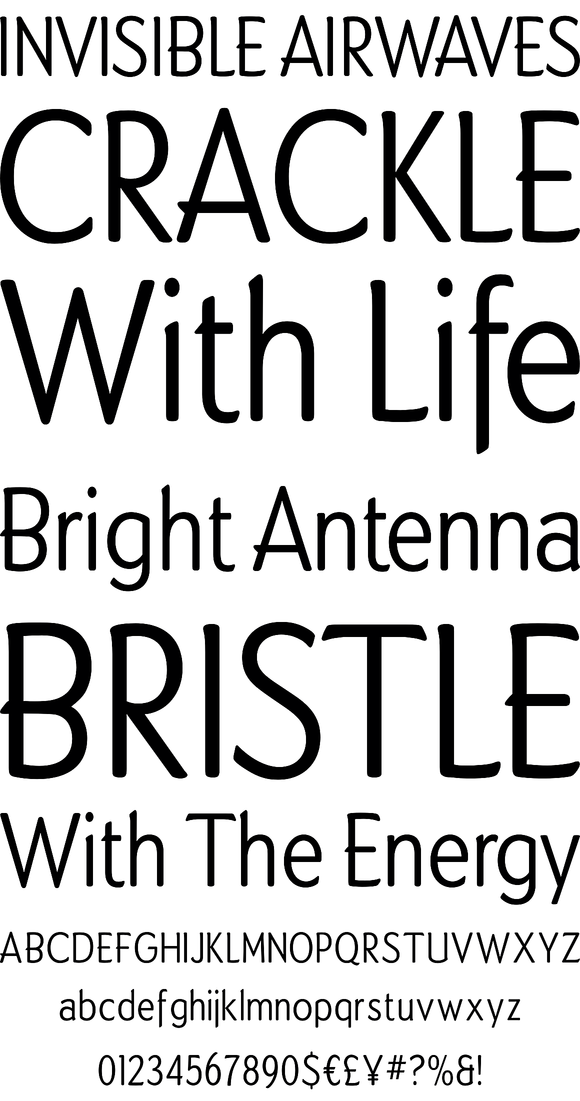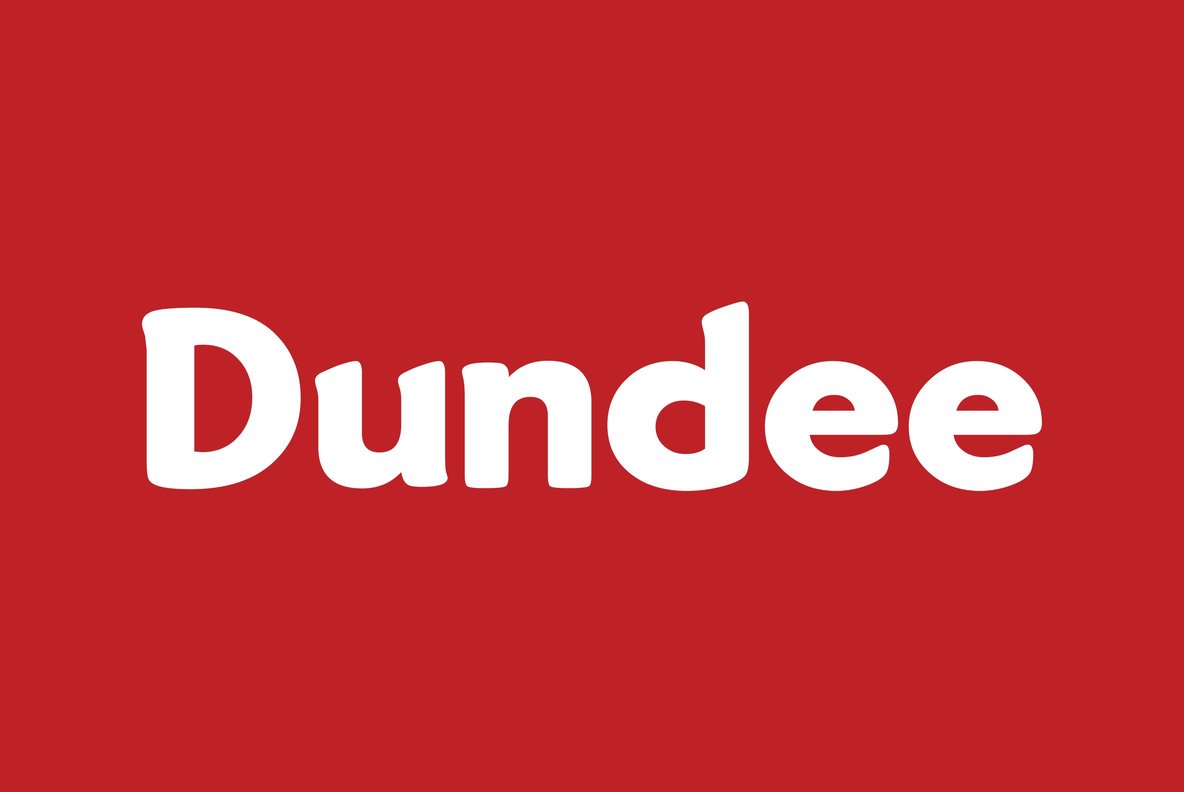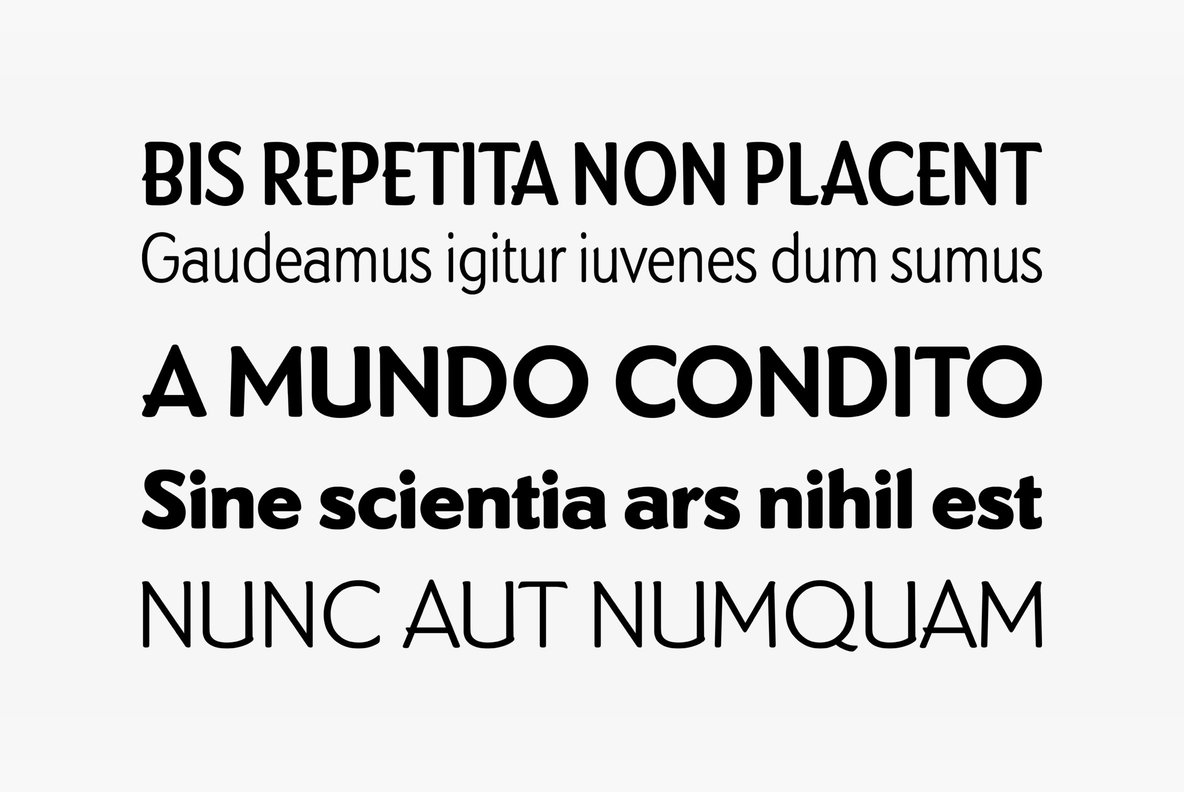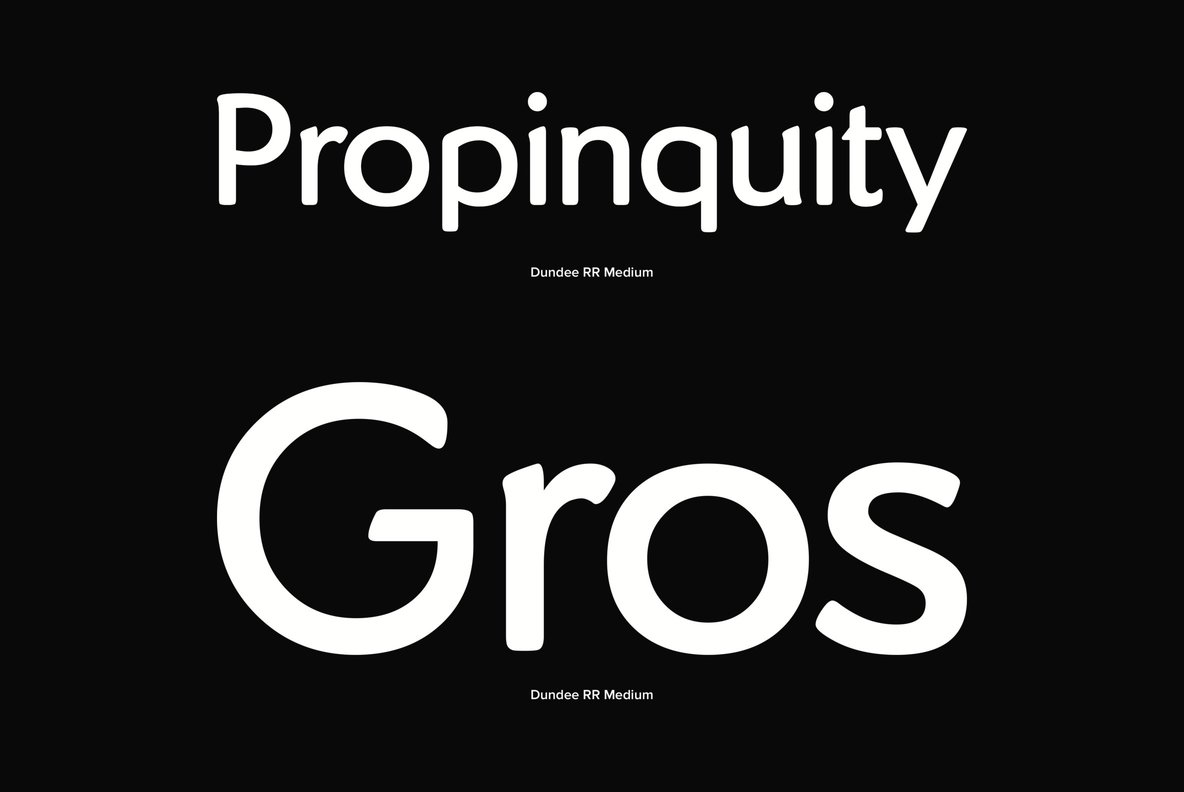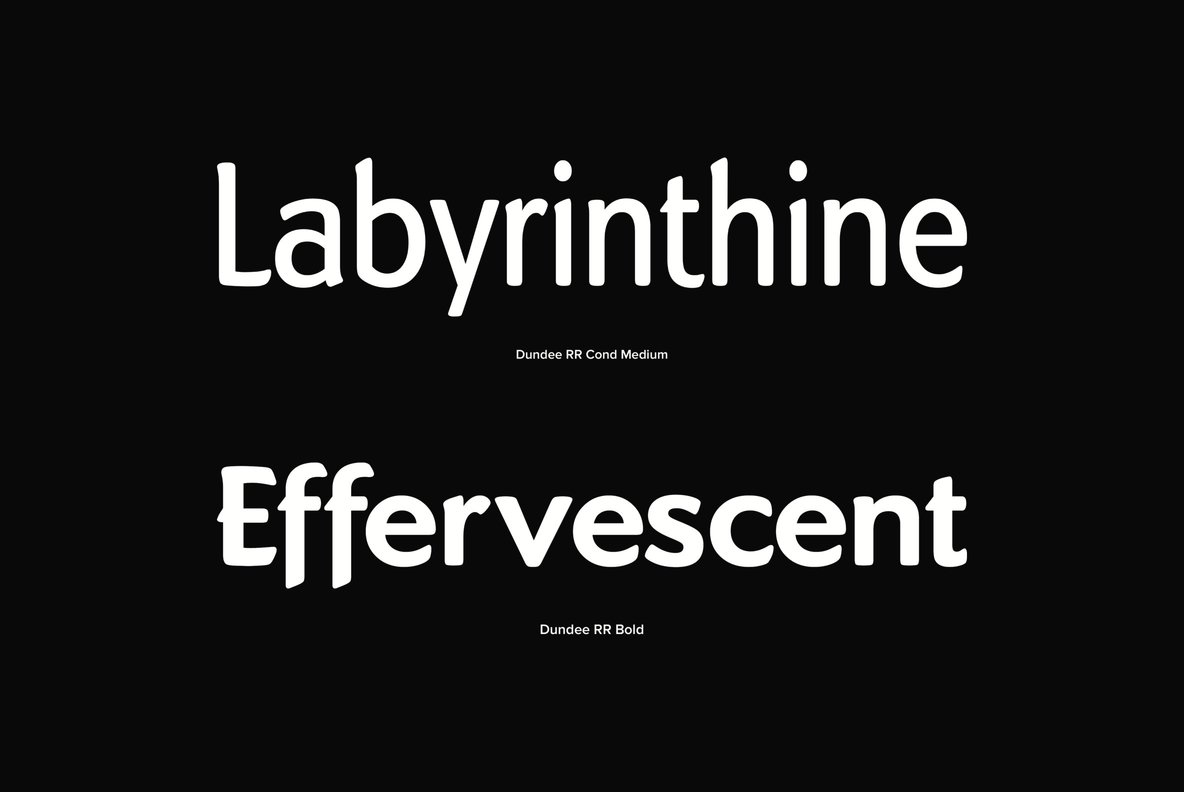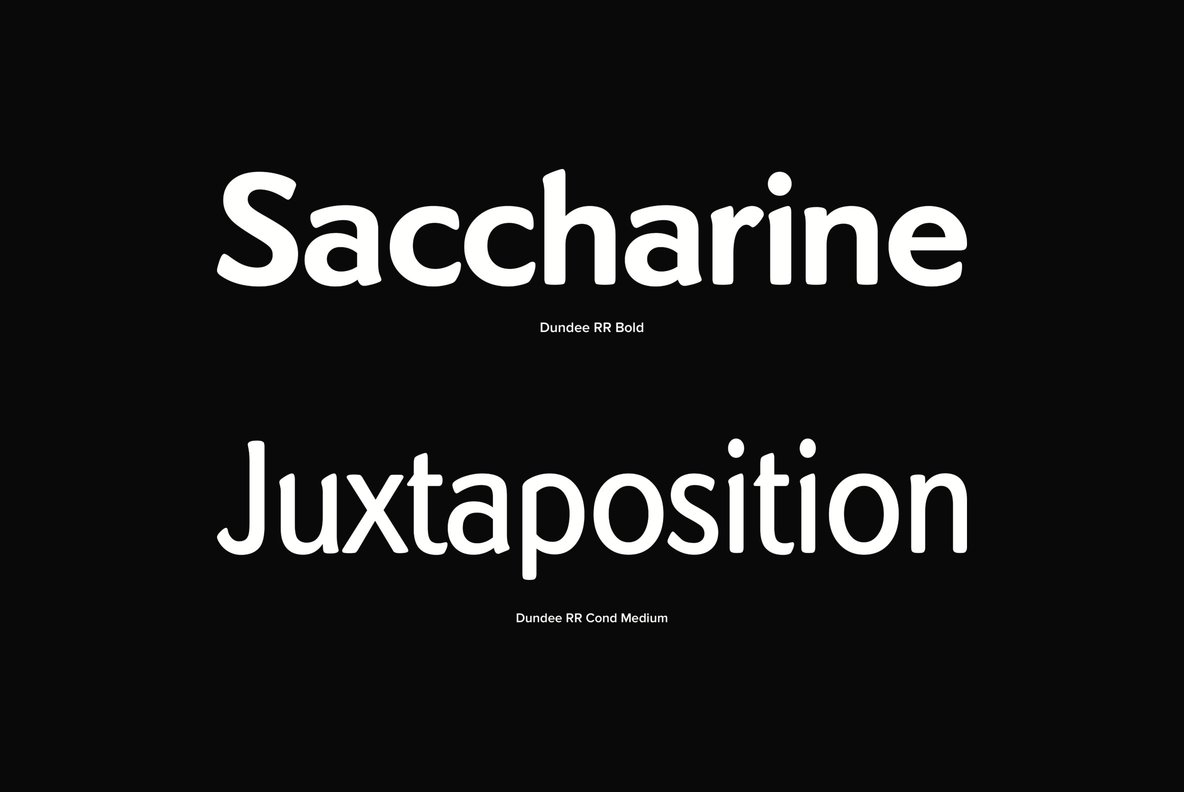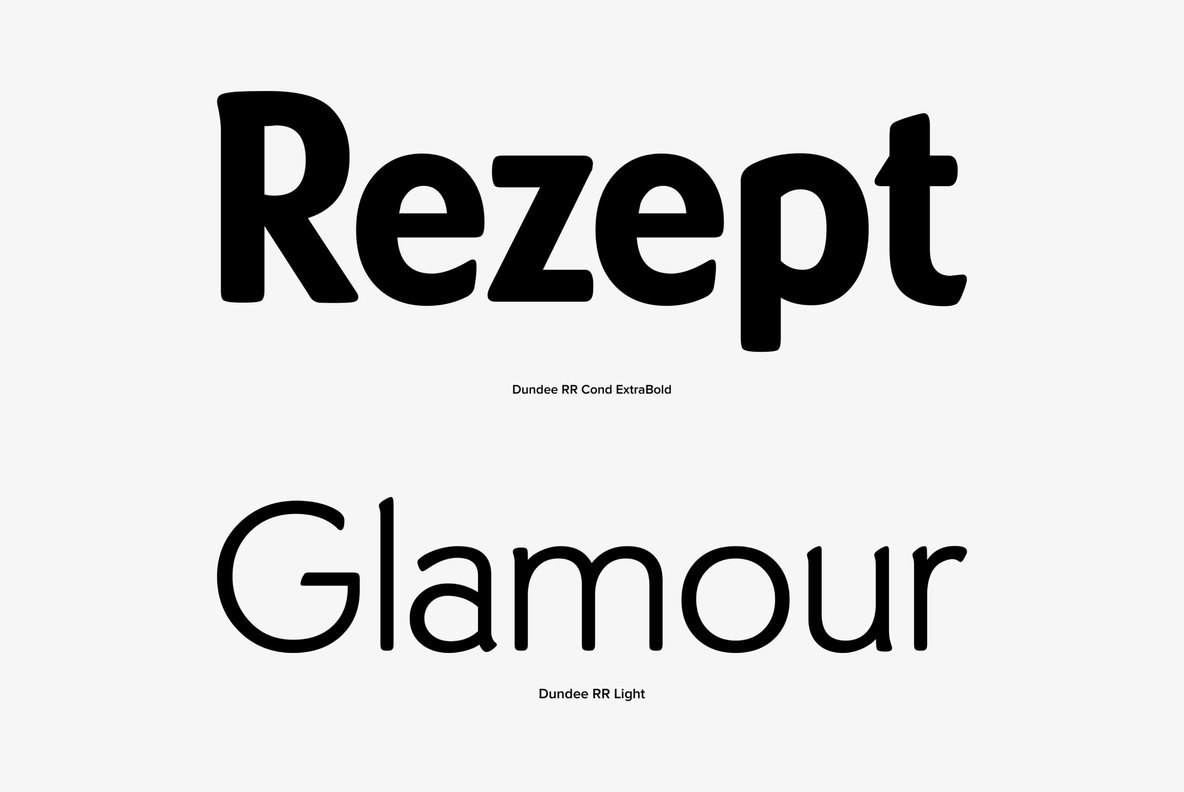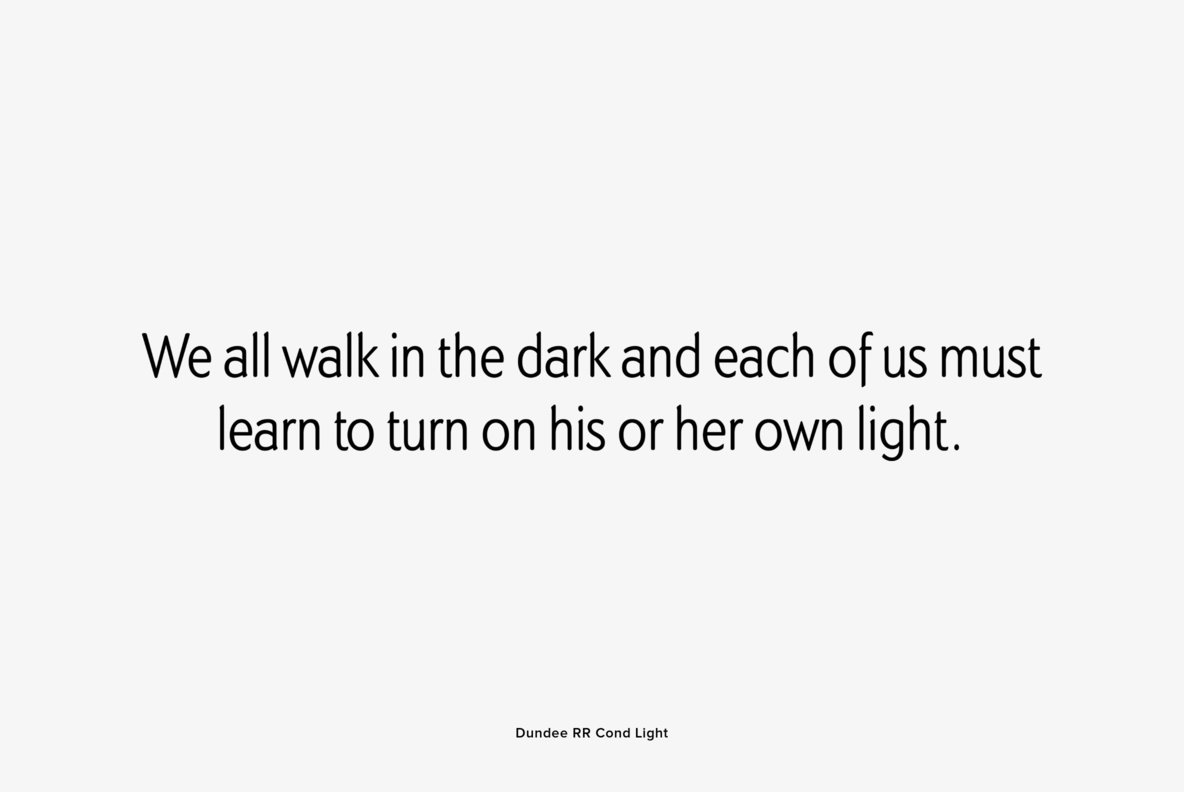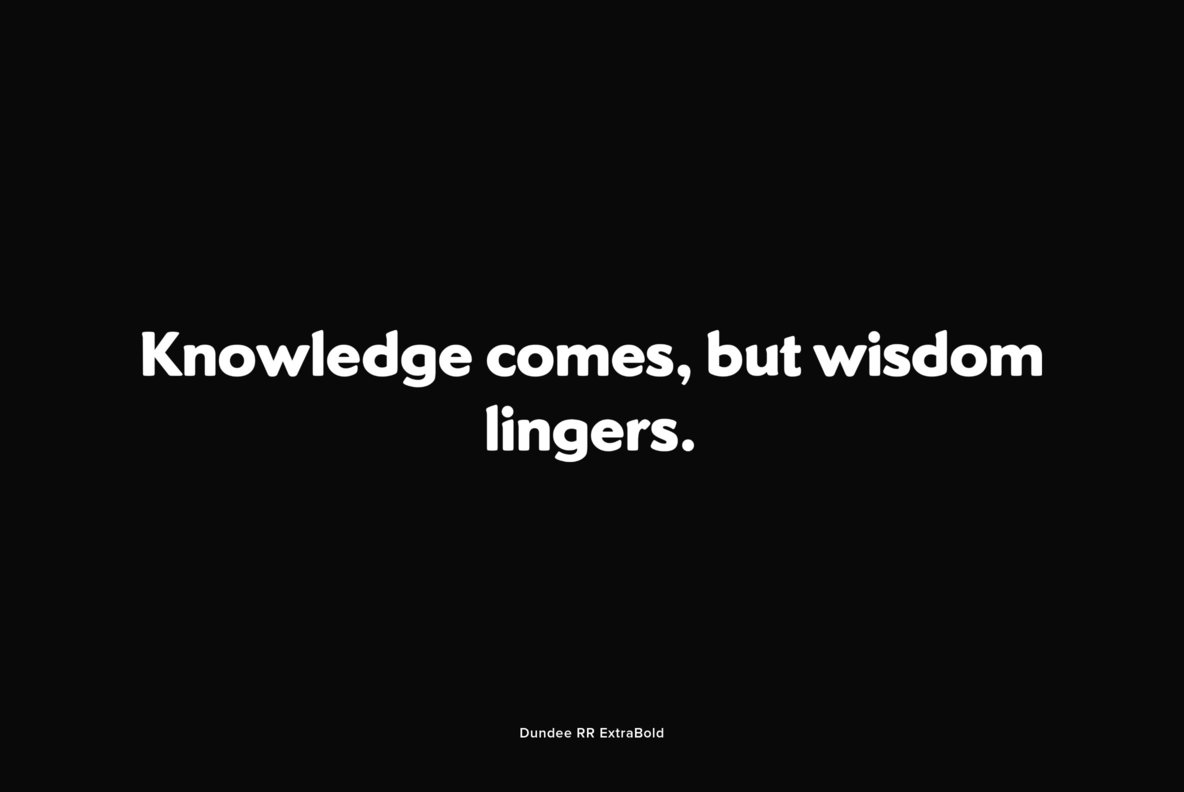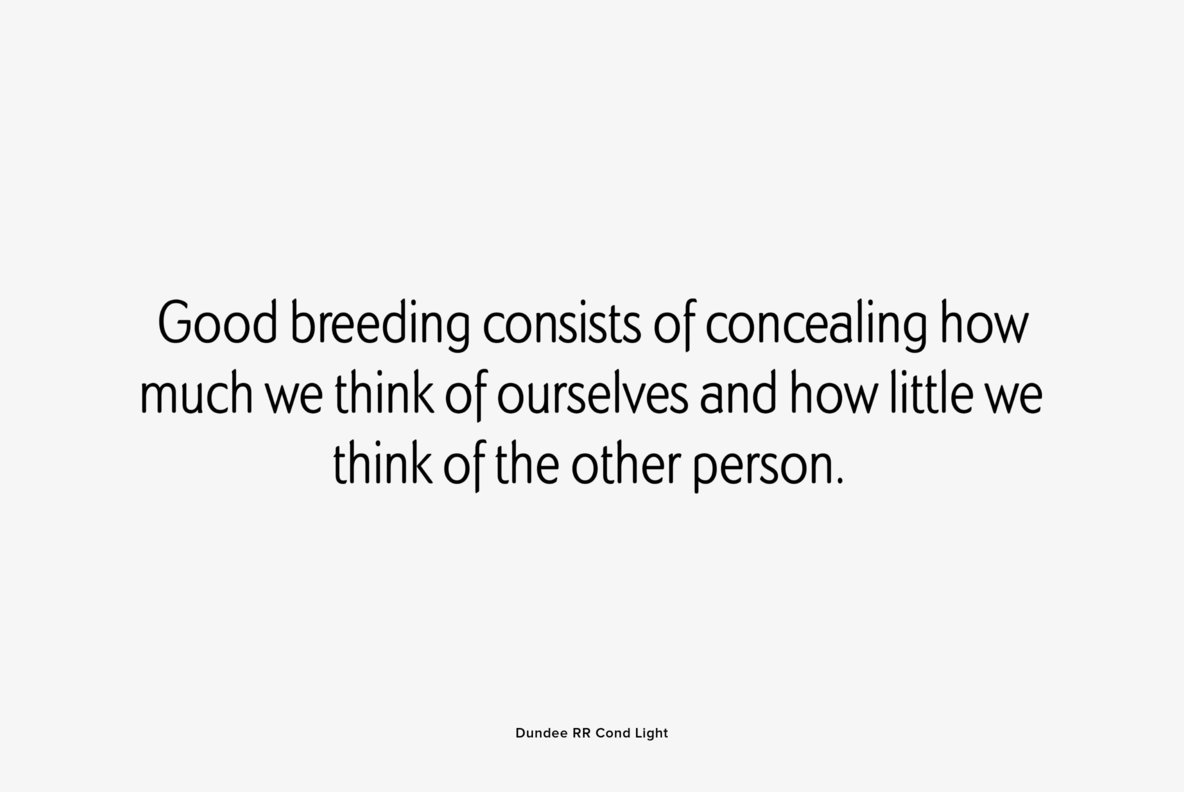
Designed by A. Pat Hickson, Dundee is a new design inspired by the various mastheads used in children's comic books in England, published by D.C. Thompson of Dundee, Scotland.